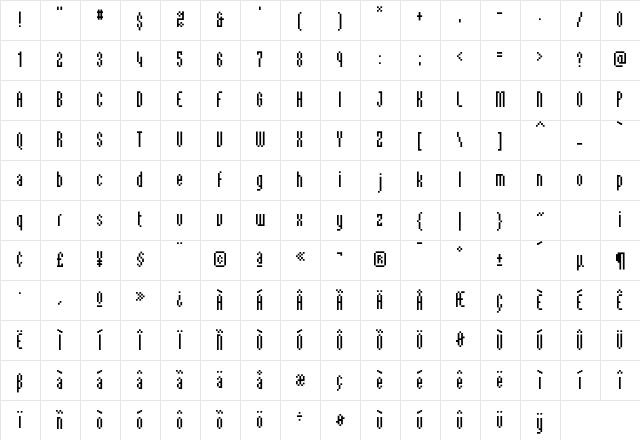
Union SquareOne
Style: SquareOne
Design Context for Union
Union is a composed and adaptable typeface that performs quietly and consistently across a wide range of design contexts.